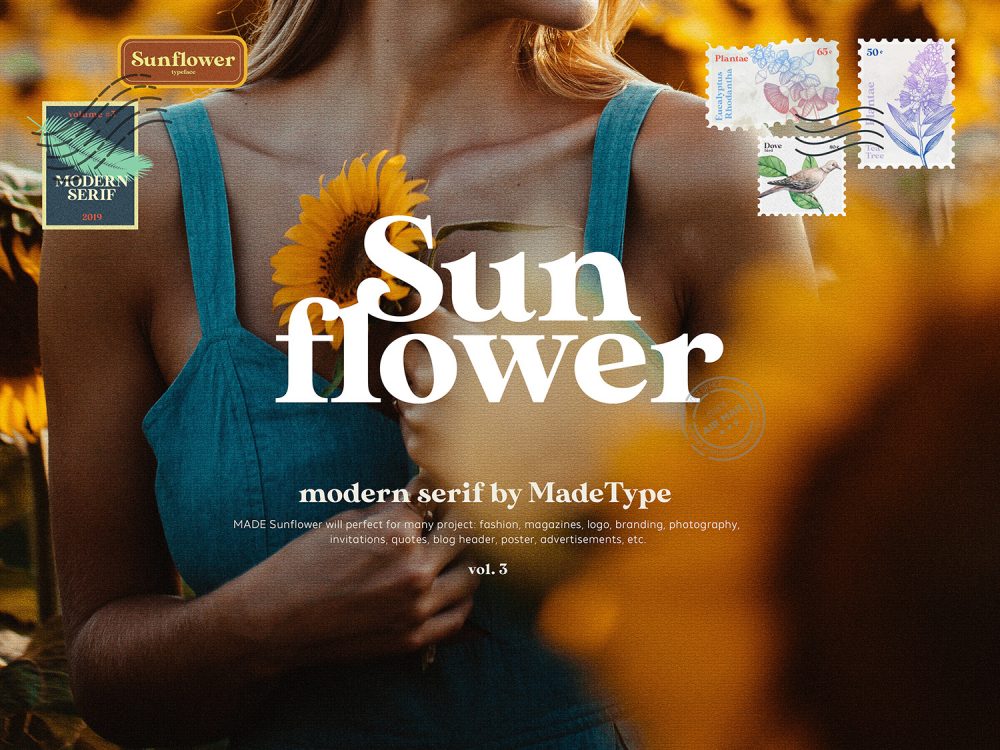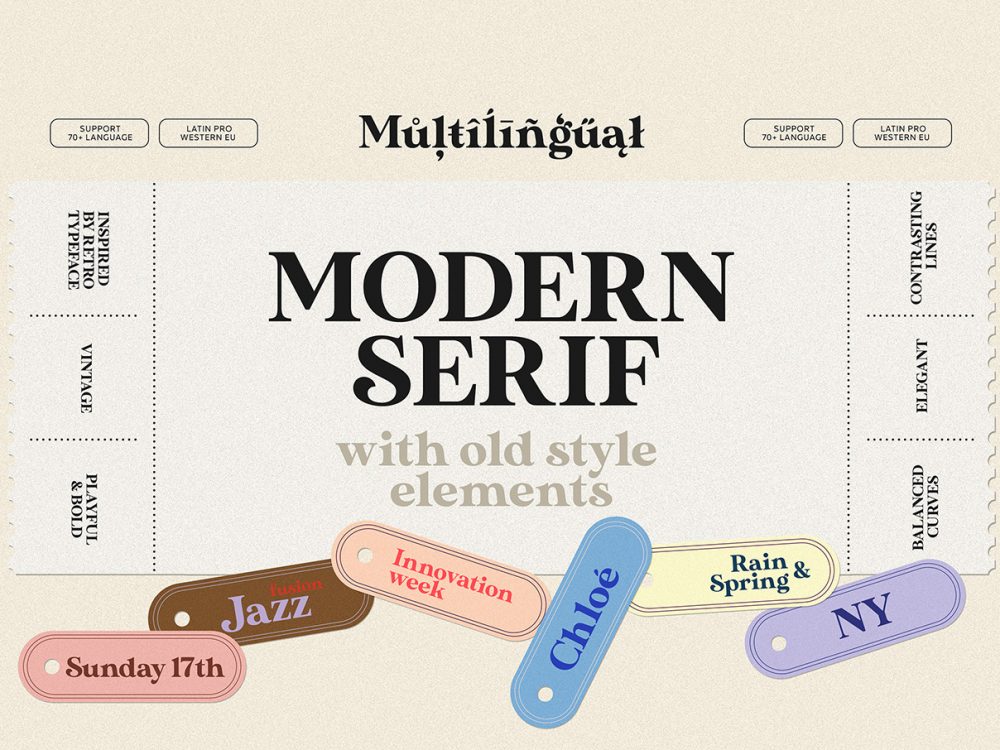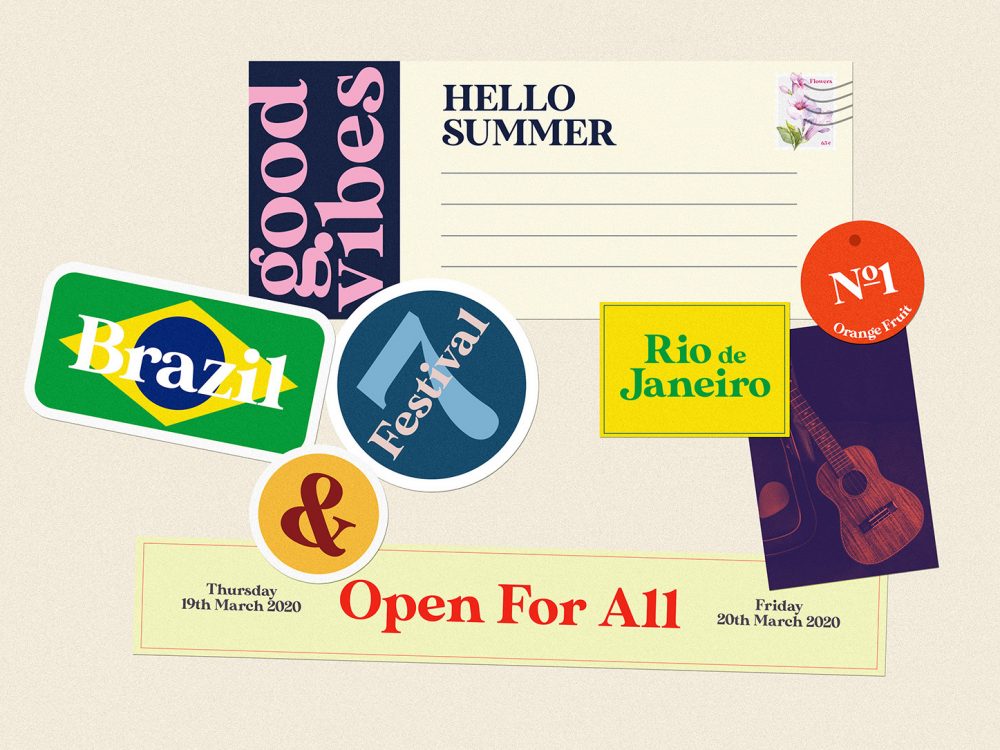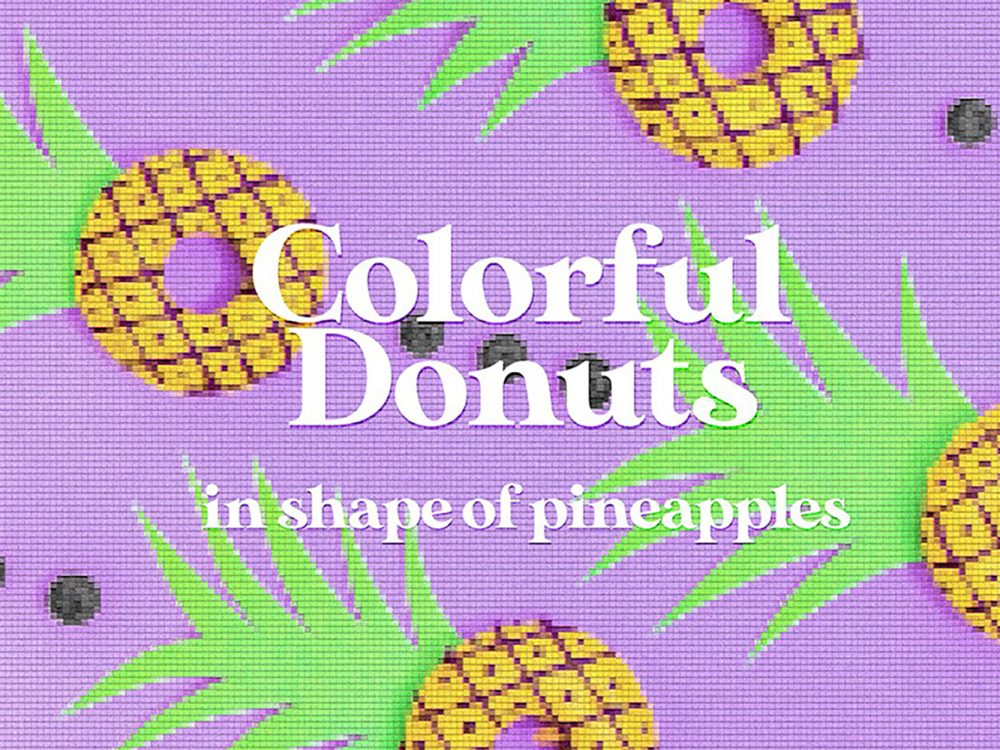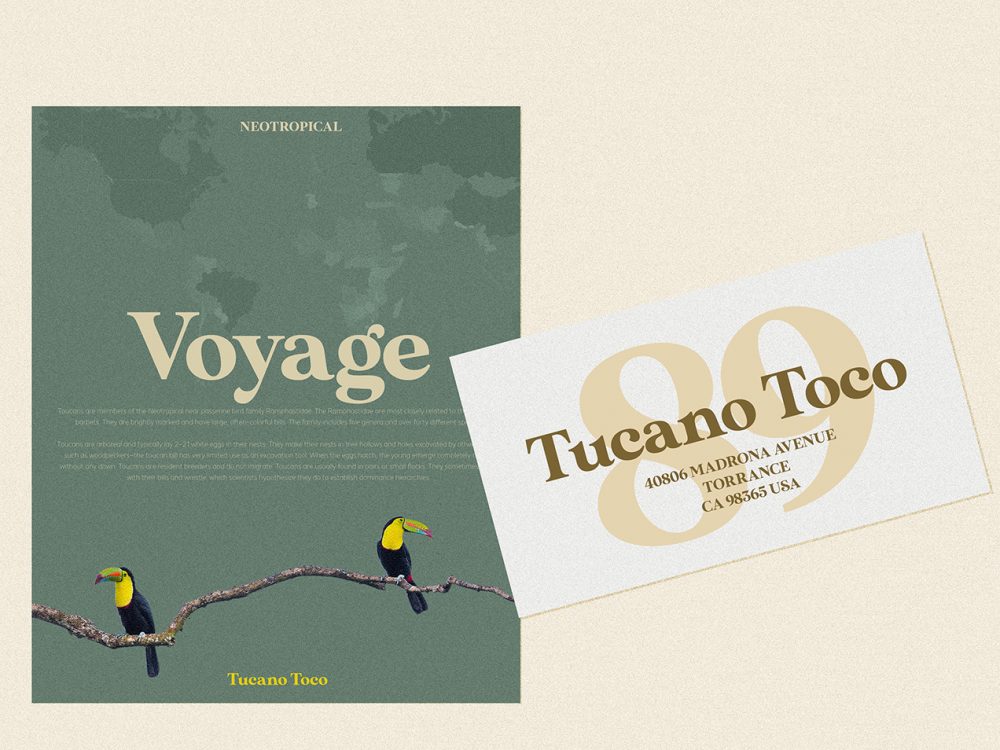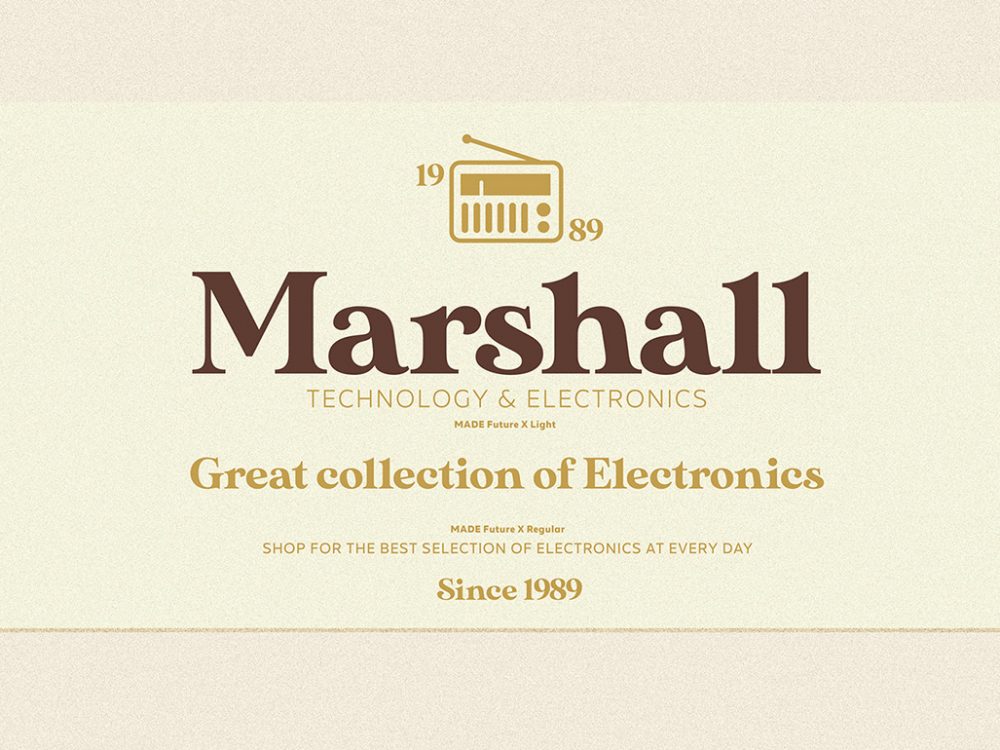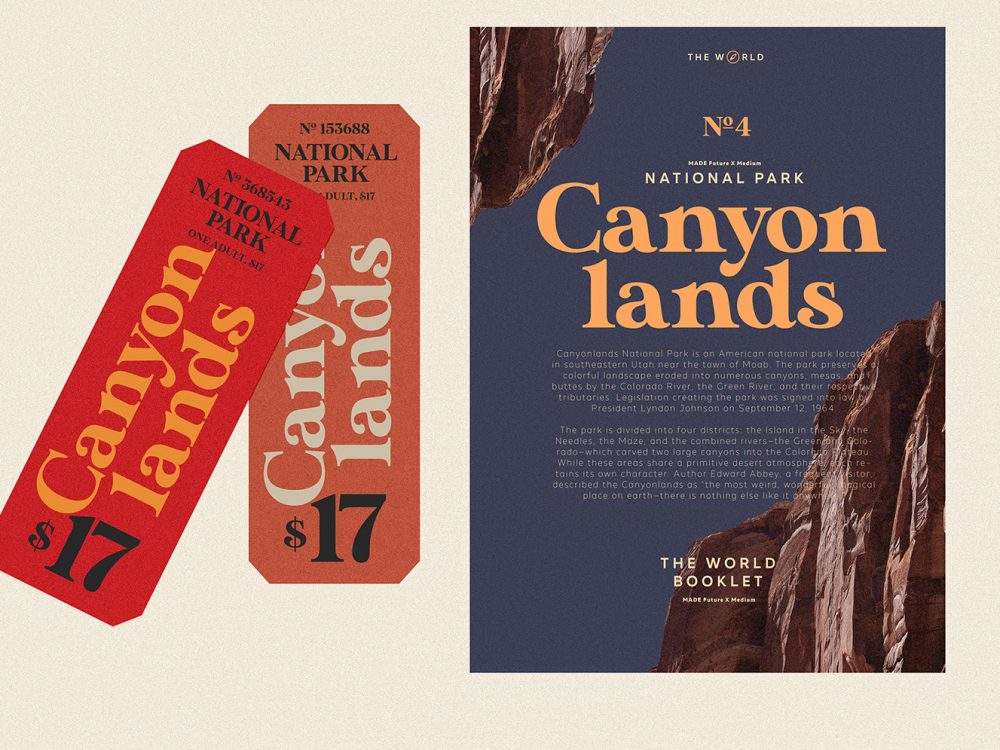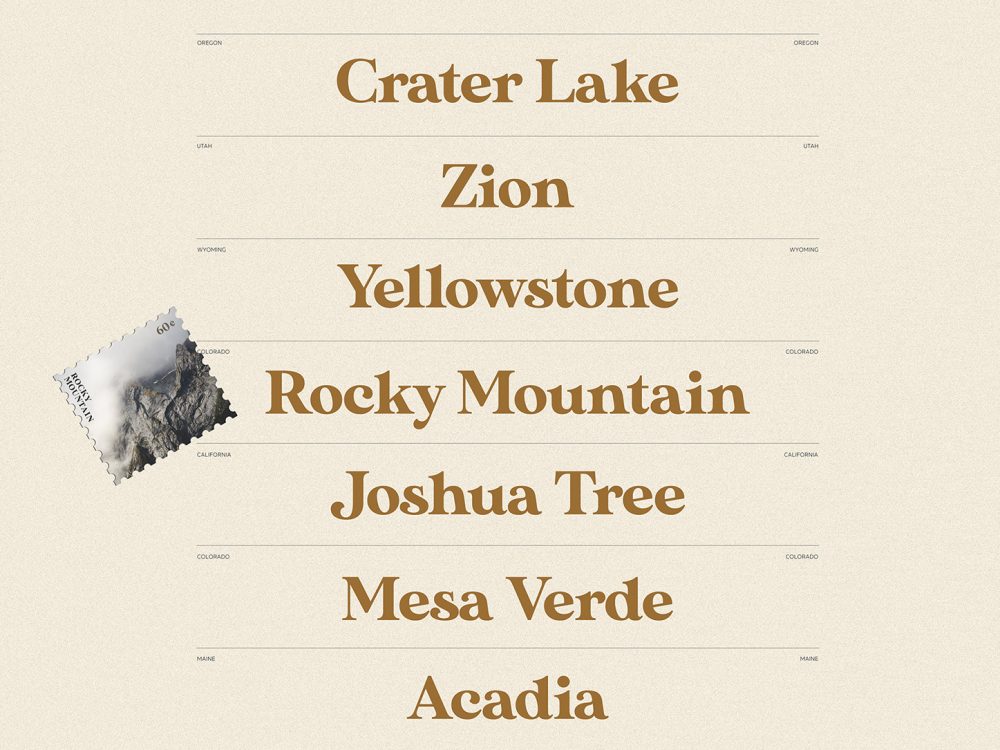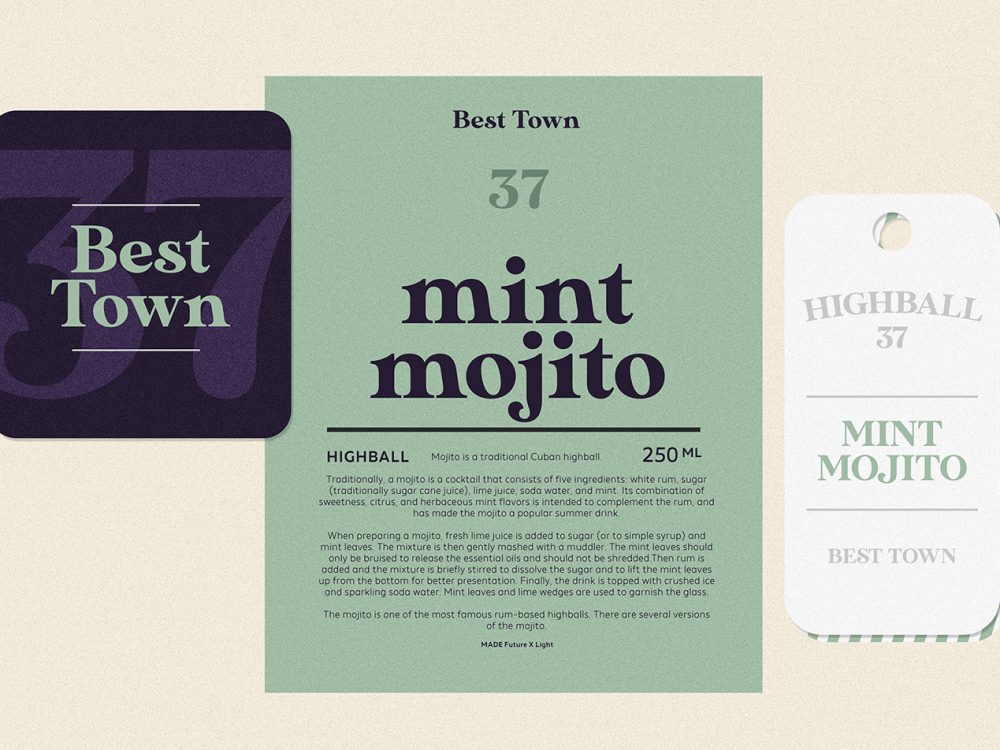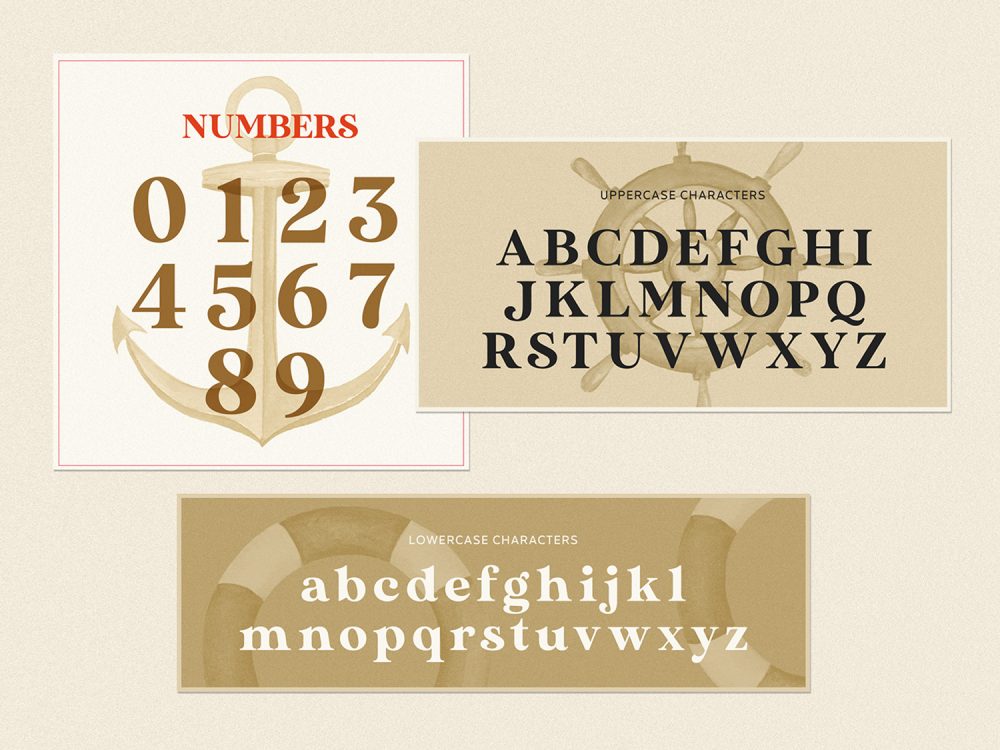
MADE Sunflower Serif Font
MADE Sunflower Serif Font is an interesting unusual font that has old-style elements in its outline. This font is perfect for many design projects such as blog titles, posters, advertisements, flyers, prints, and more. If you wish to access more features and use them for commercial work please buy the full version.